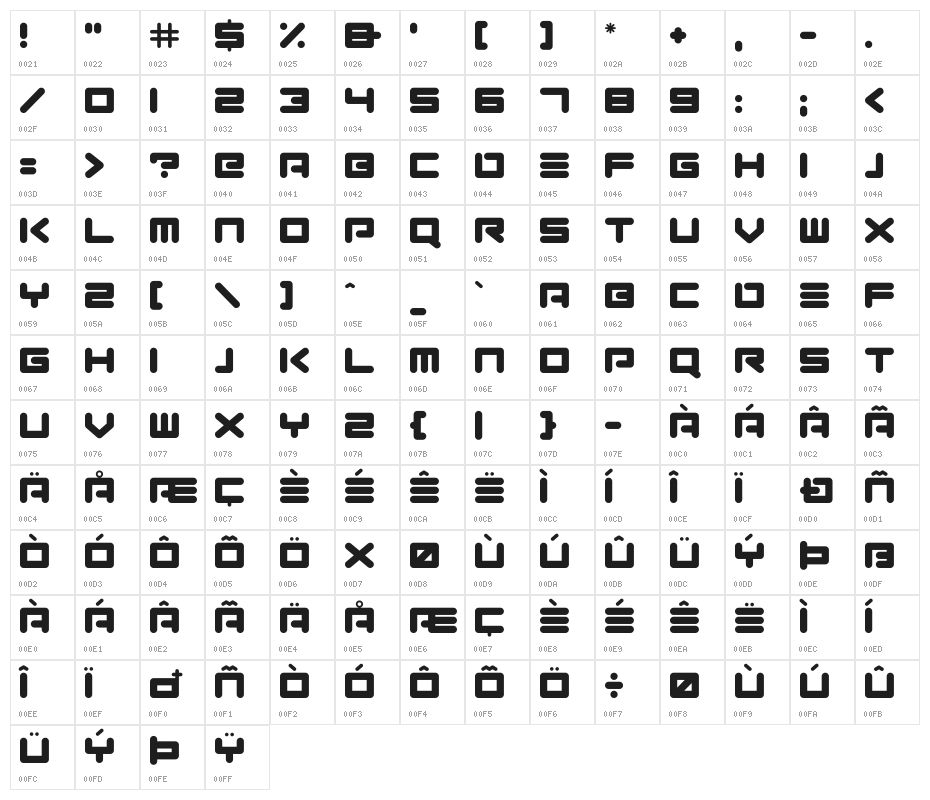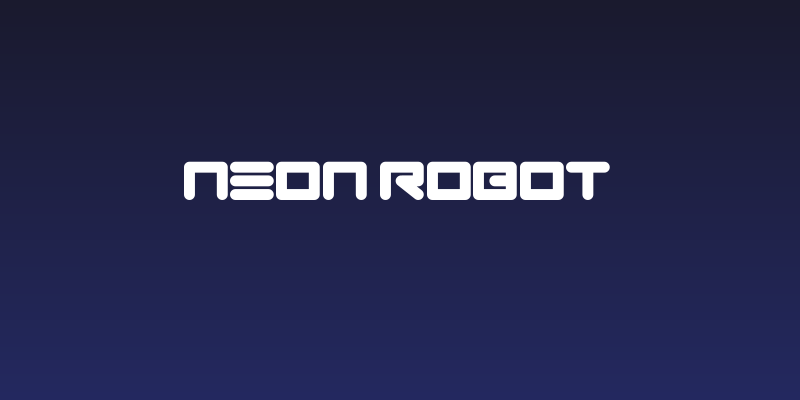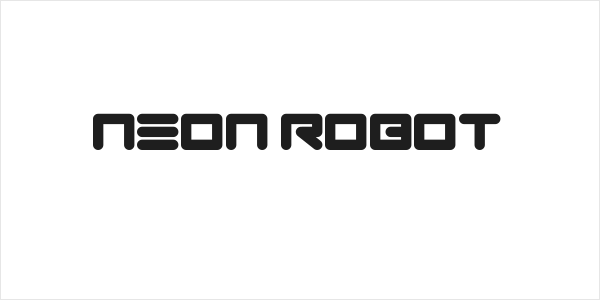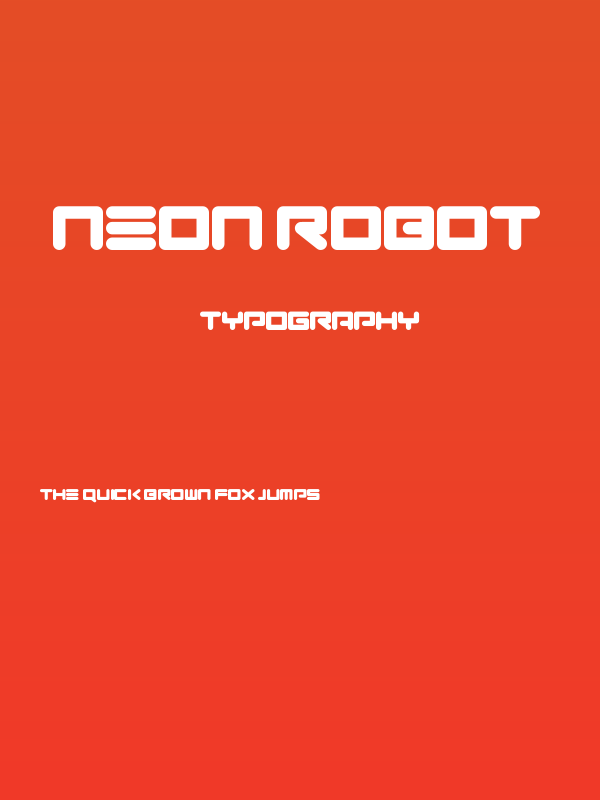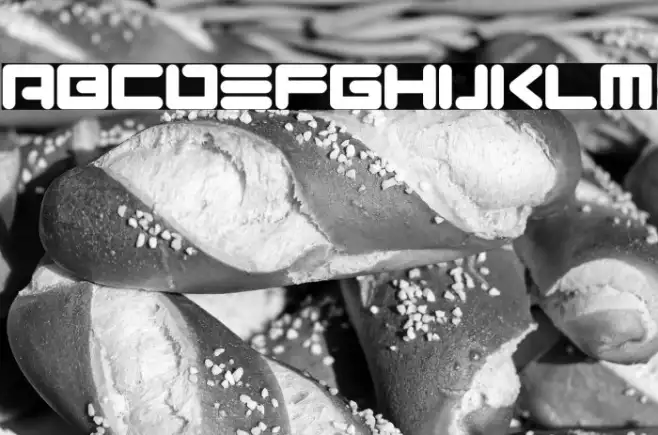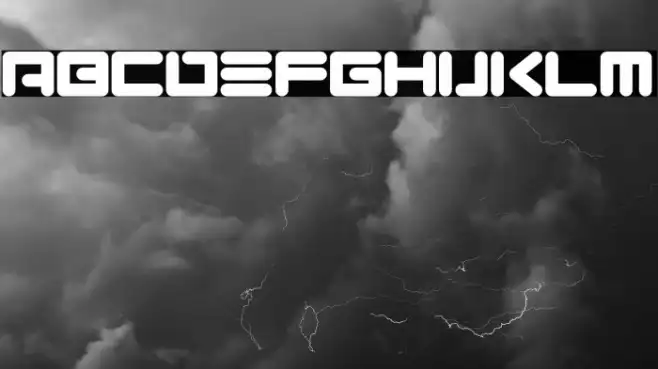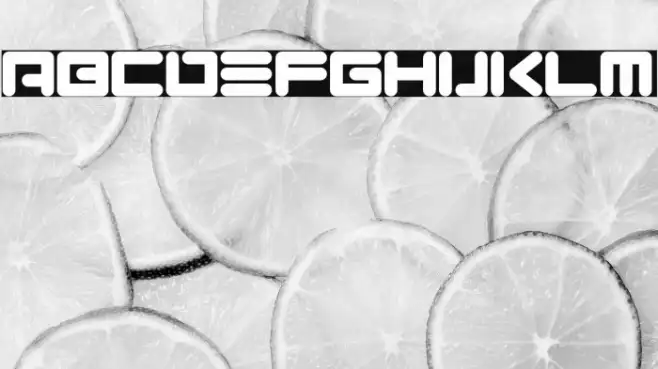
Neon Robot Font
Neon Robot Description
This font features a futuristic and robotic design, characterized by its bold and rounded letterforms. The characters are constructed with a consistent thickness, giving them a uniform and cohesive appearance. The rounded edges and geometric shapes contribute to a modern and technological feel, making it suitable for digital and tech-related projects. The font includes both uppercase and lowercase letters, numbers, and a variety of special characters, allowing for versatile use in different contexts.
| Proposed Projects | Ideal for technology branding, sci-fi posters, video game titles, and digital interfaces. |